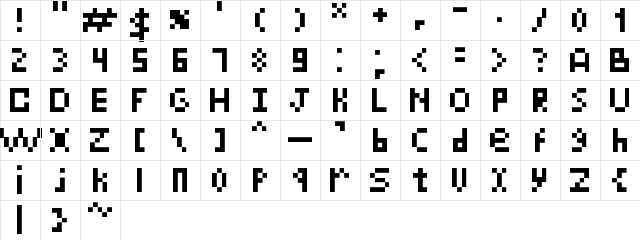
OurQuinny Regular
| Designer | QuinnyEz |
Design Context for OurQuinny Typeface
OurQuinny is a composed and adaptable typeface that performs quietly and consistently across a wide range of design contexts.
Pro Tip: Use OurQuinny in both headline and body roles to test its range before committing to a single application.